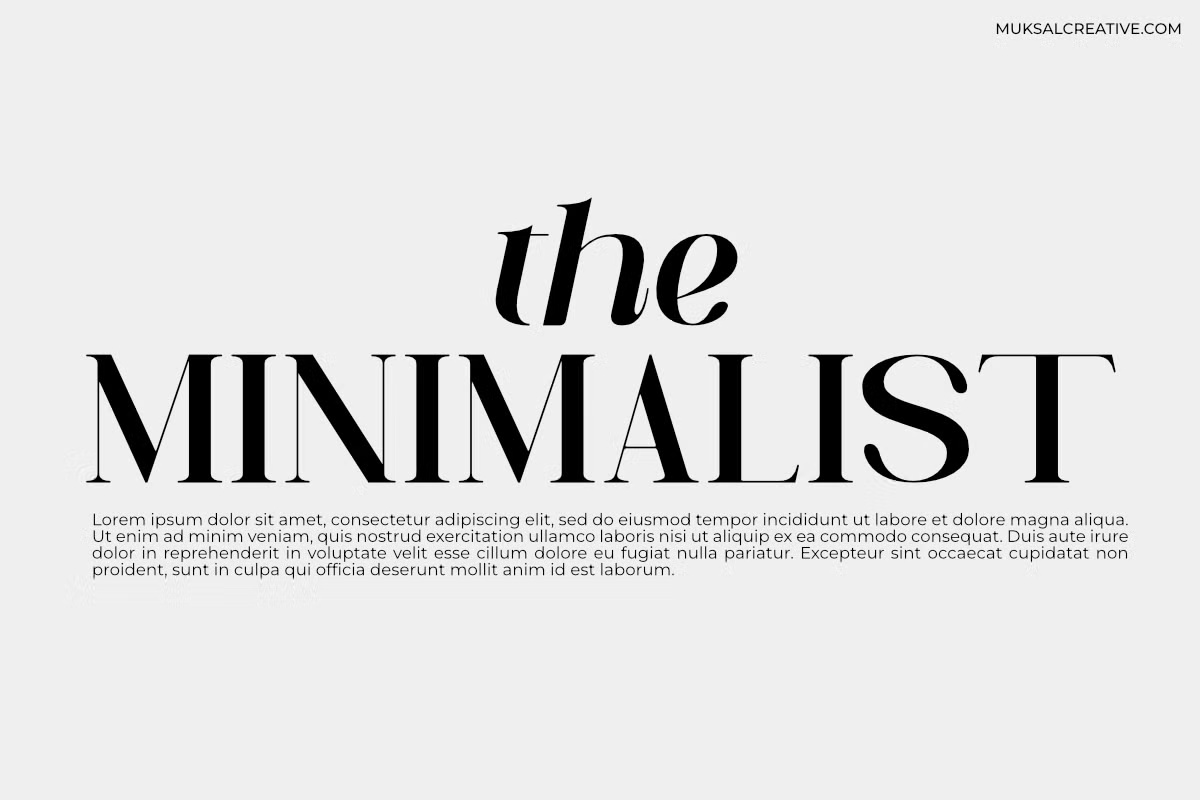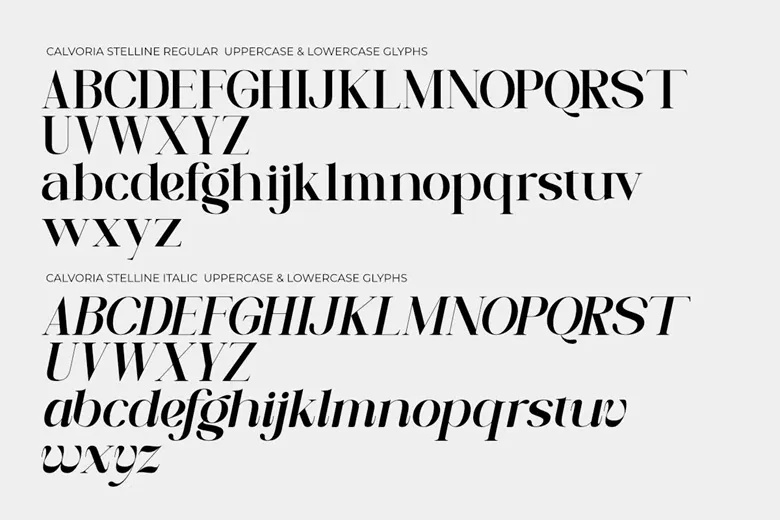
Calvoria Stelline Font
Calvoria Stelline is an elegant serif typeface that effortlessly blends classic nobility with modern minimalism. Available in two styles—Regular and Italic—both feature smooth, harmonious designs with balanced proportions, sharp details, and graceful curves. This makes Calvoria Stelline perfect for projects seeking sophistication, clarity, and charm.
Ideal for editorial layouts, branding, wedding stationery, and any creative project that calls for a confident, stylish aesthetic. Calvoria Stelline speaks the language of beauty—calm, poised, and timeless—expressed through every carefully crafted letter.